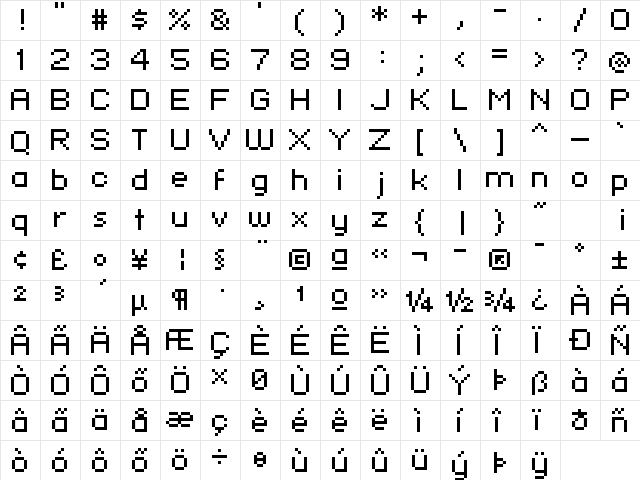
standard 07_54 Regular
standard 07_54 is a composed and adaptable typeface that performs quietly and consistently across a wide range of design contexts.